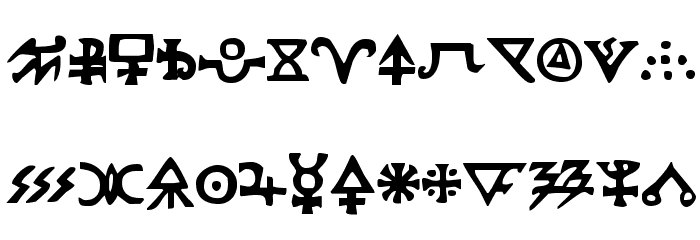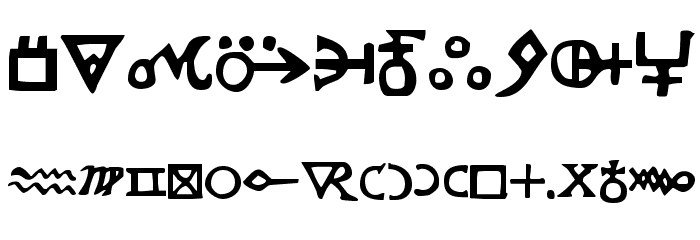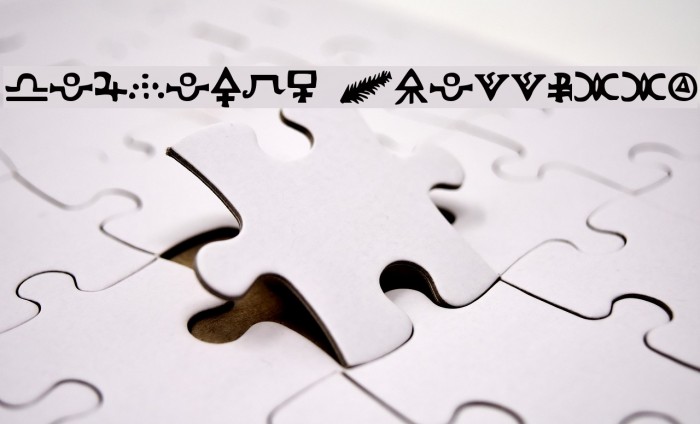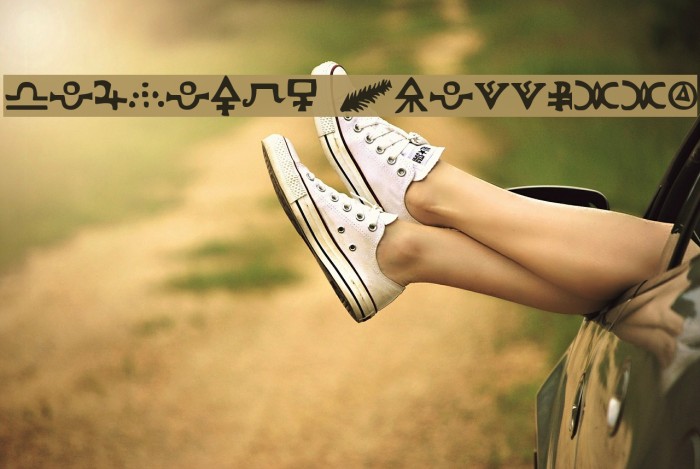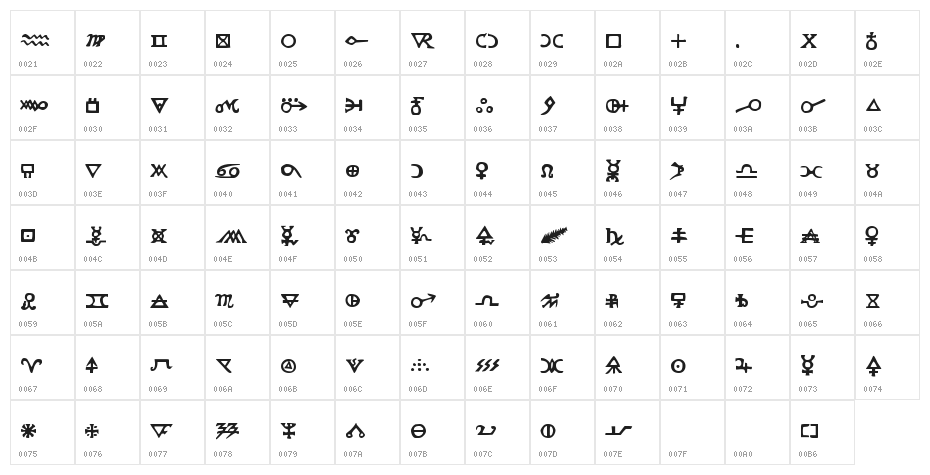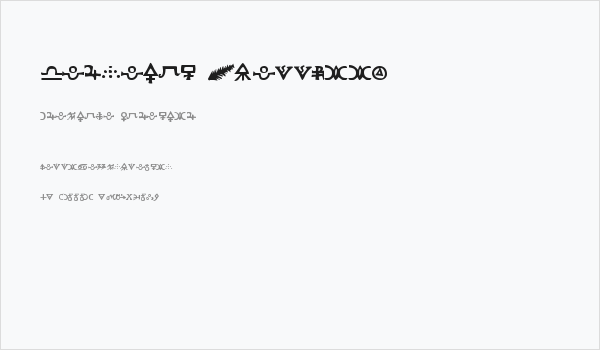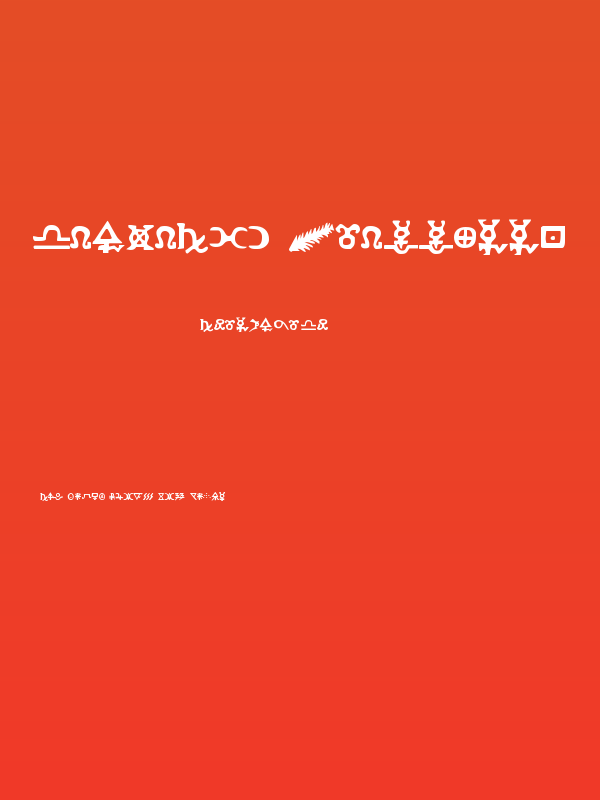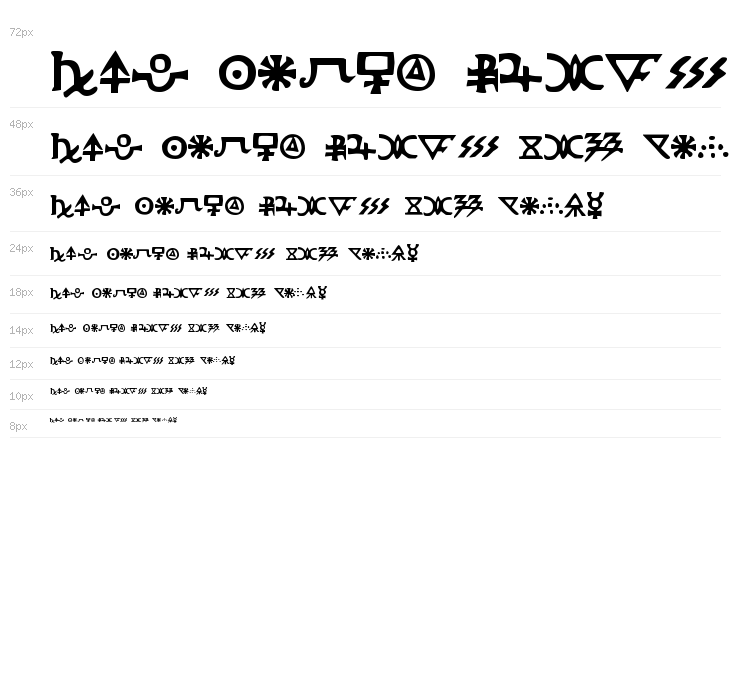
Hermetic Spellbook Font
This font features a collection of mystical and arcane symbols, each character resembling ancient runes or magical glyphs. The design is highly decorative, with intricate details that suggest a connection to esoteric traditions or alchemical texts. The symbols are bold and striking, with a consistent weight throughout, giving them a strong presence on the page. The characters vary in complexity, with some incorporating geometric shapes and others featuring more organic, flowing lines. This font evokes a sense of mystery and otherworldliness, making it ideal for projects that require an enigmatic or magical aesthetic.
A decorative font of mystical symbols resembling ancient runes.
- Proposed Projects: Ideal for fantasy book covers, game design, mystical posters, or any project requiring an esoteric or magical theme.
- Overall Style: Mystical, Esoteric, Magical
- Use Case: Logos, Posters, Book Covers